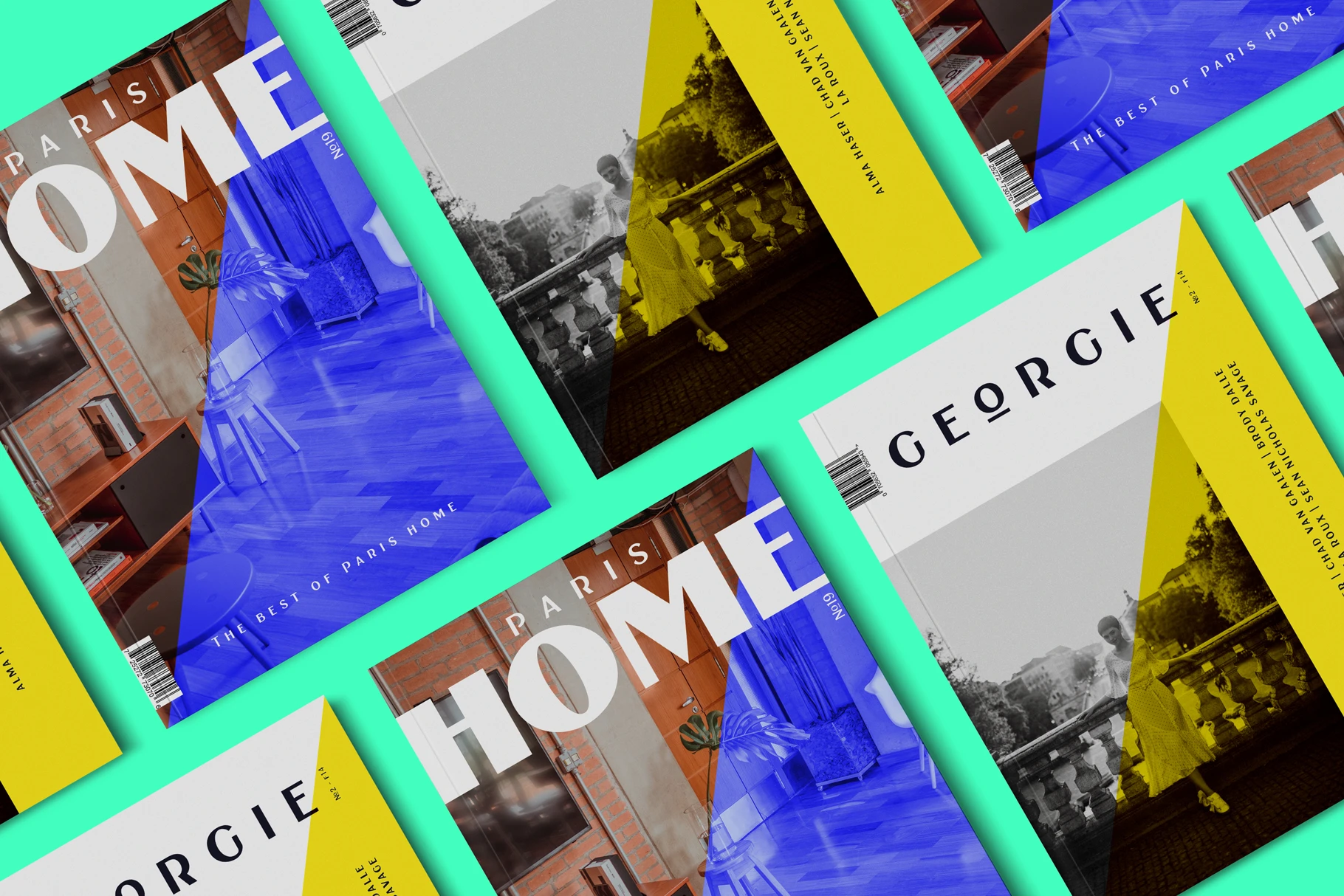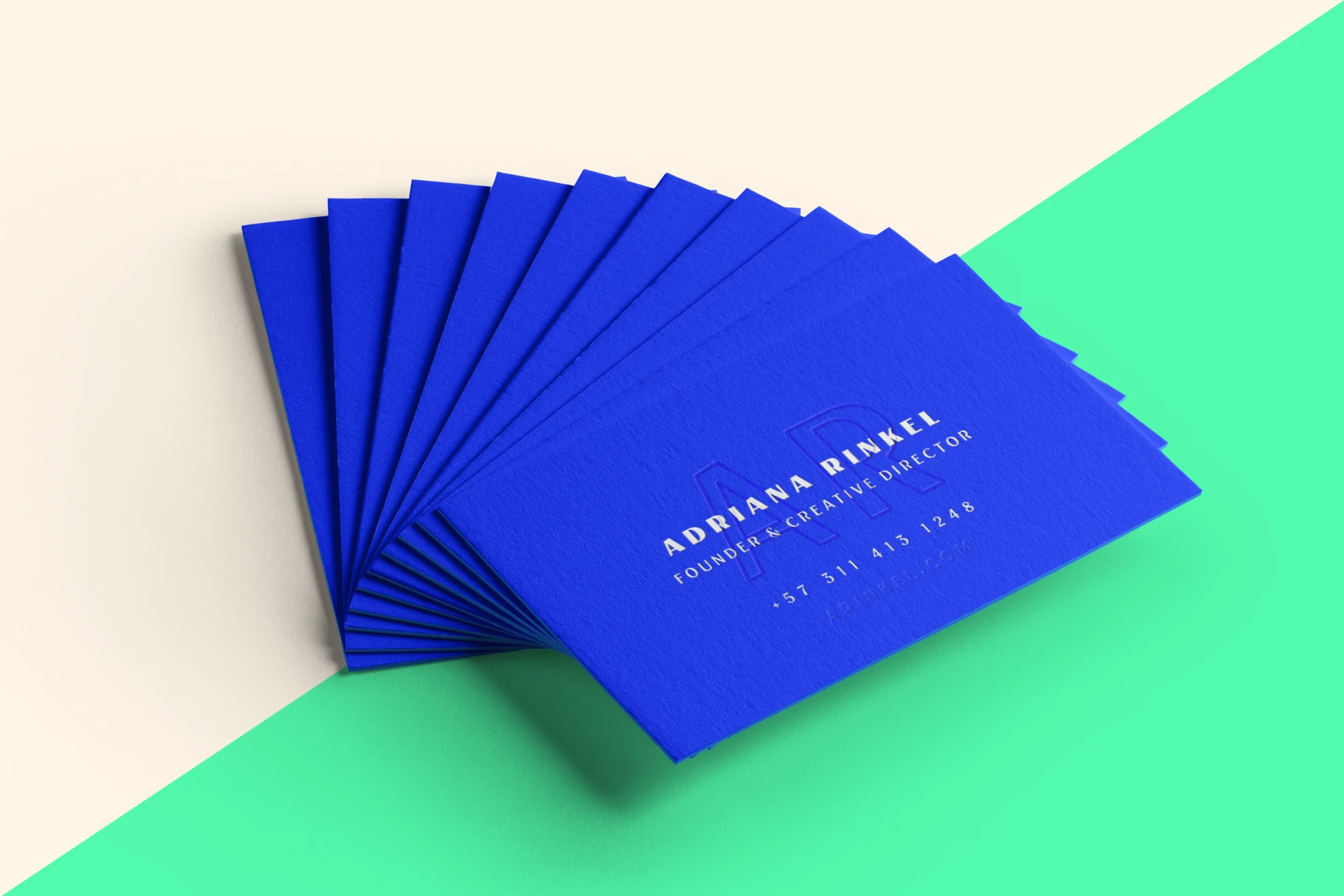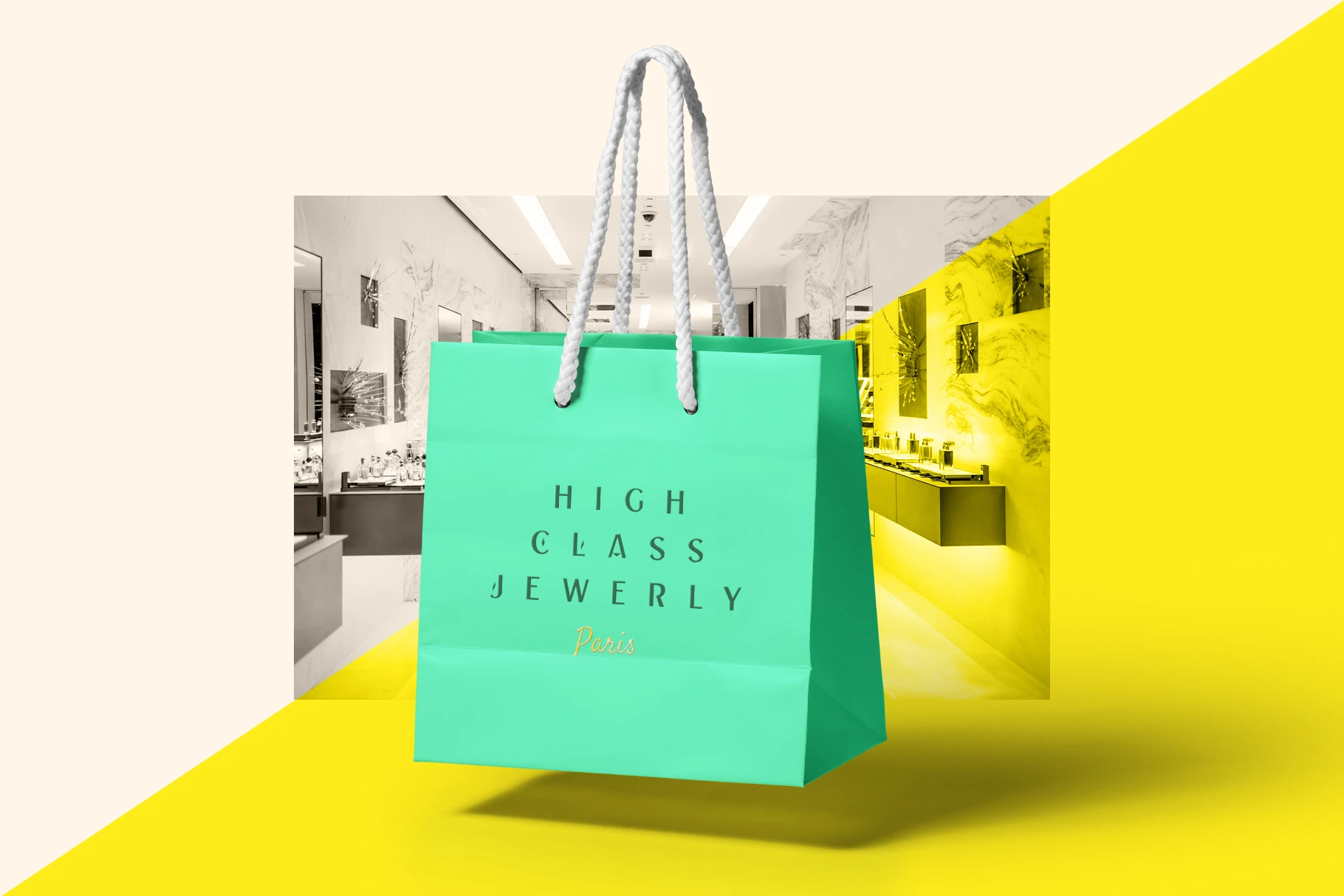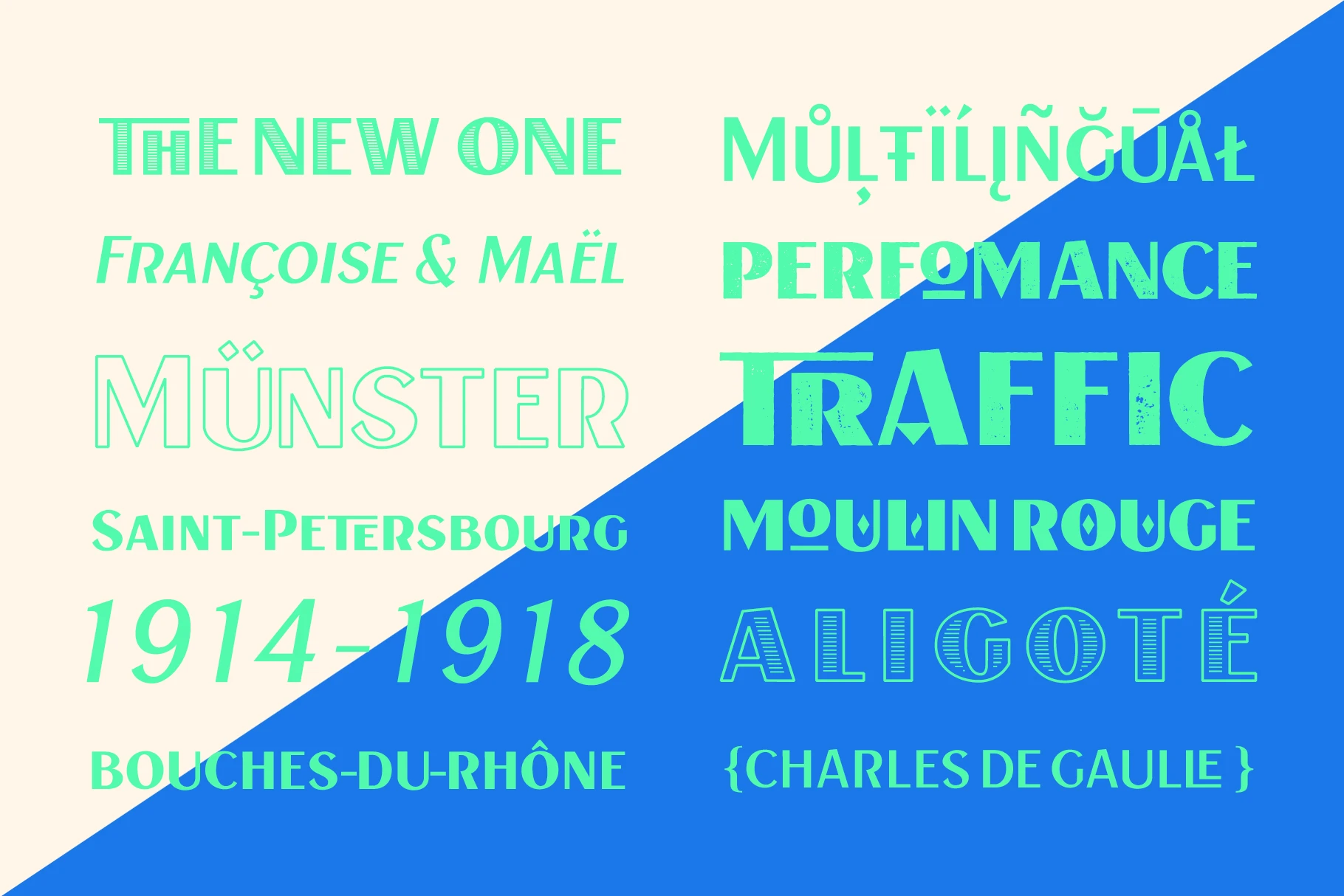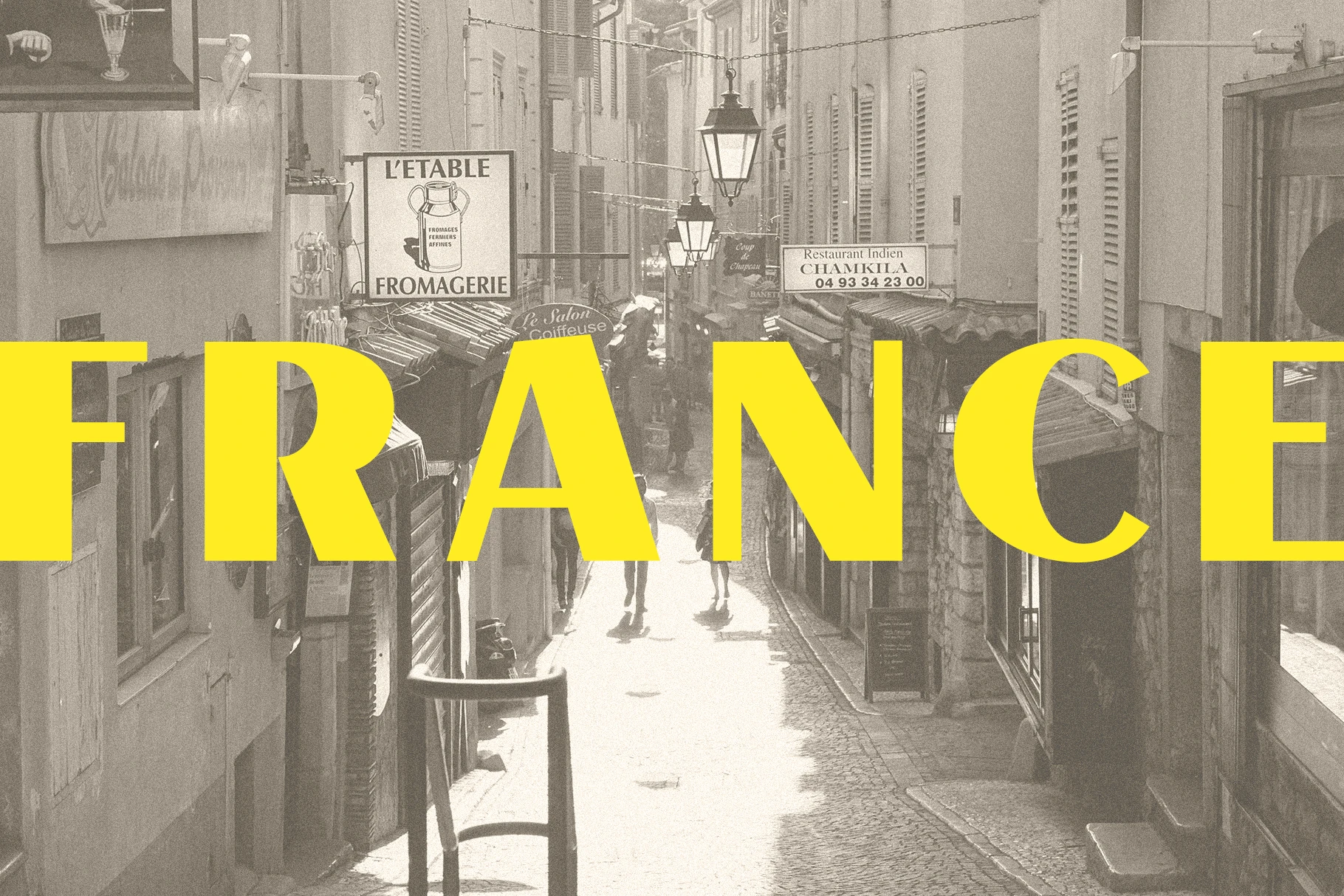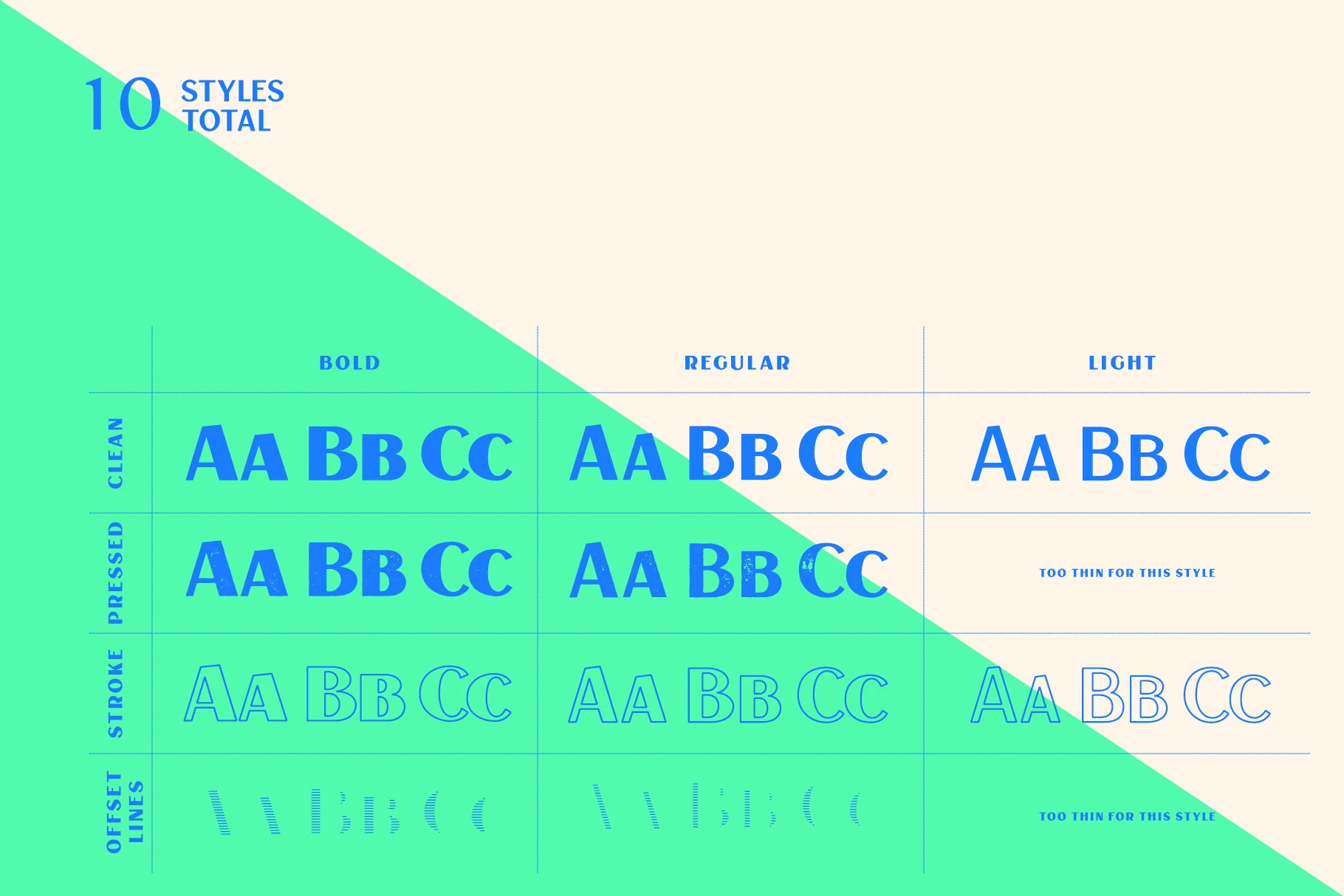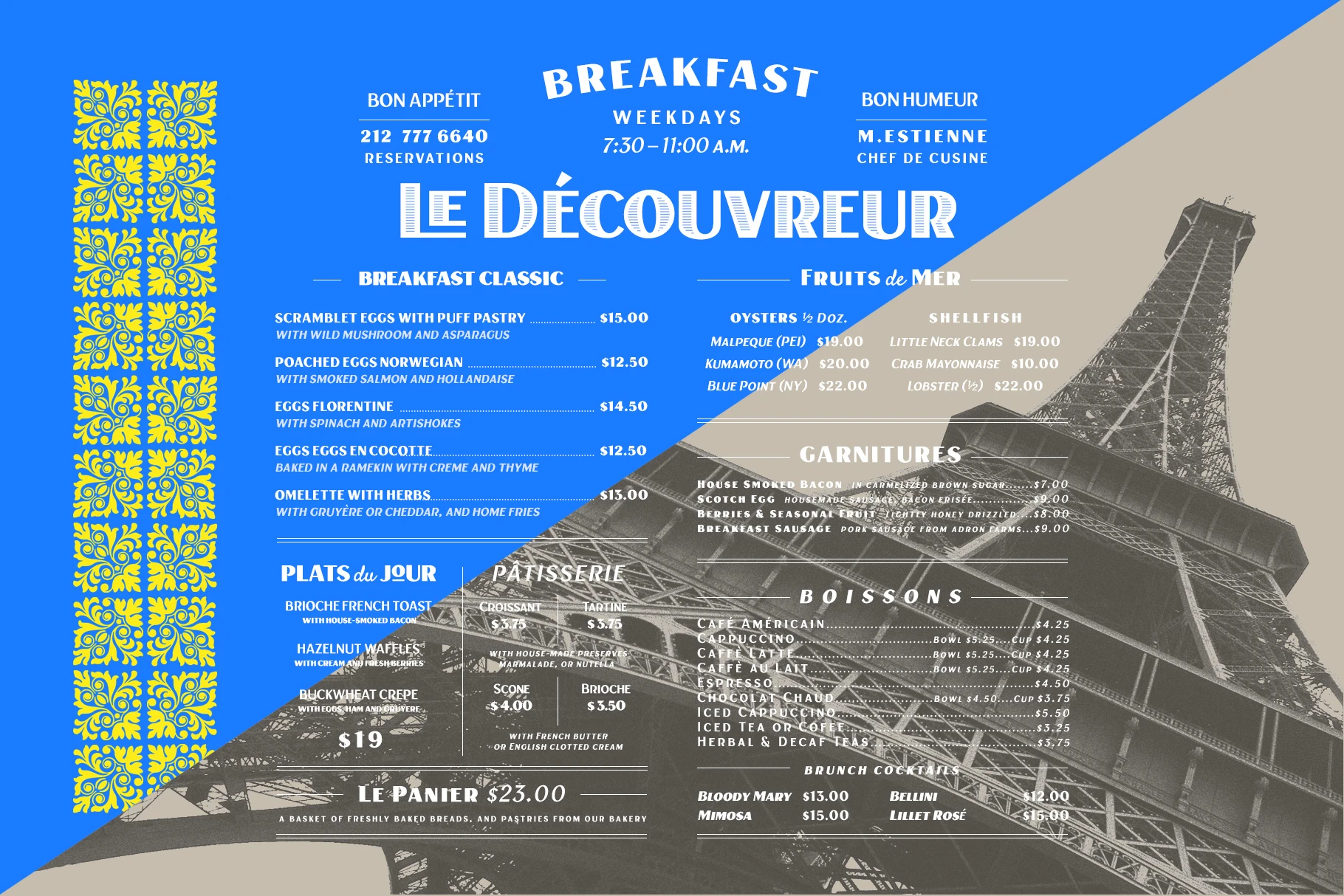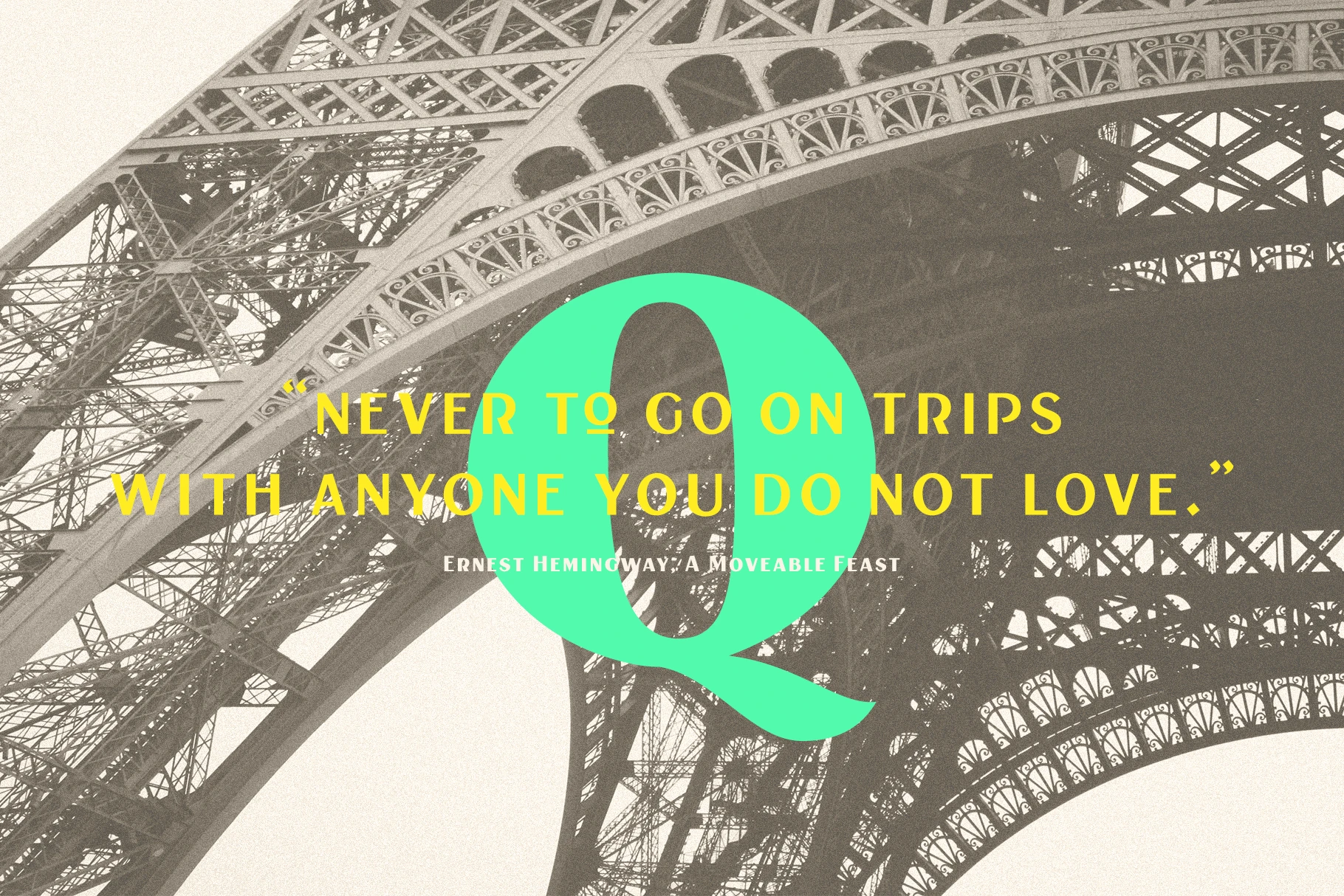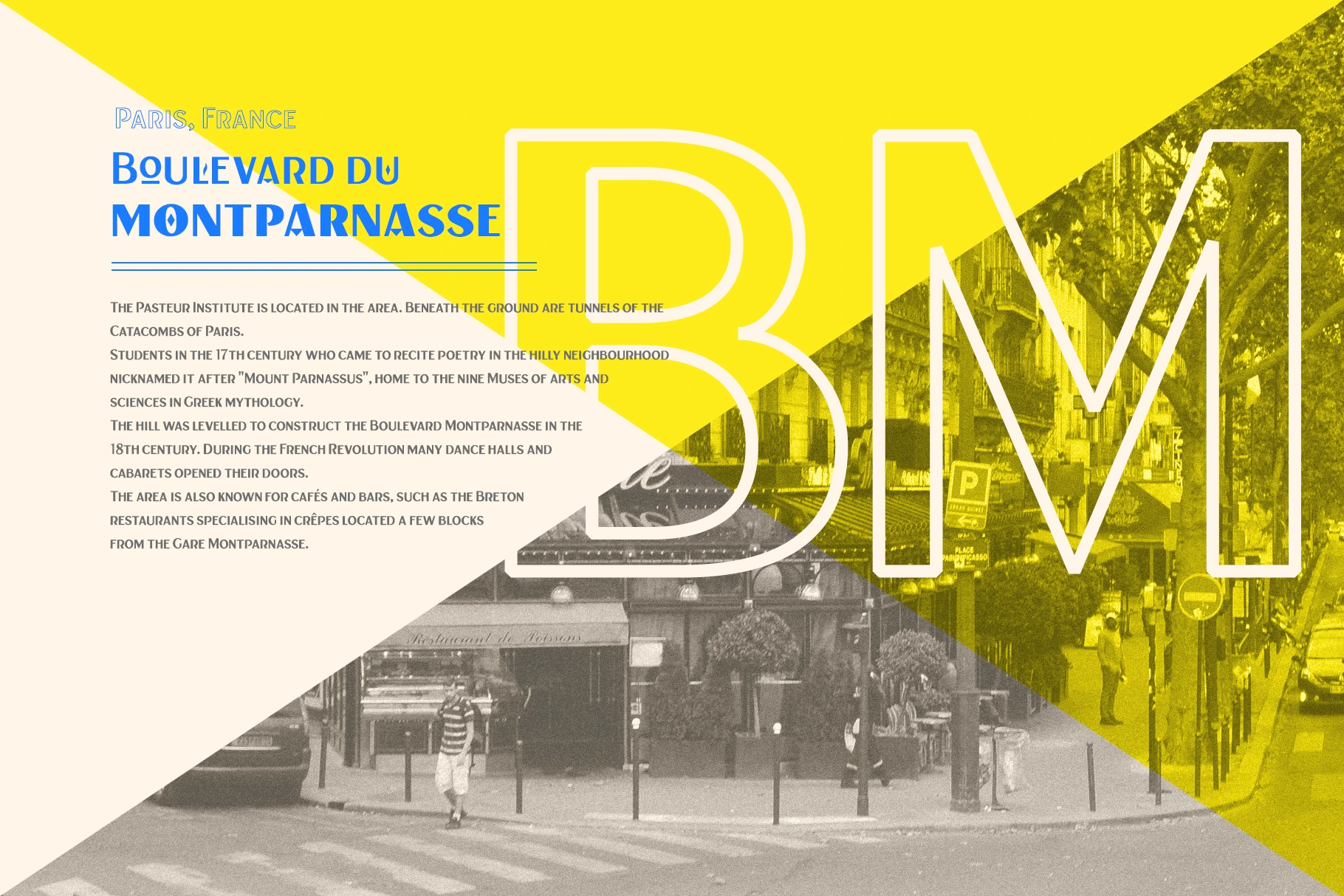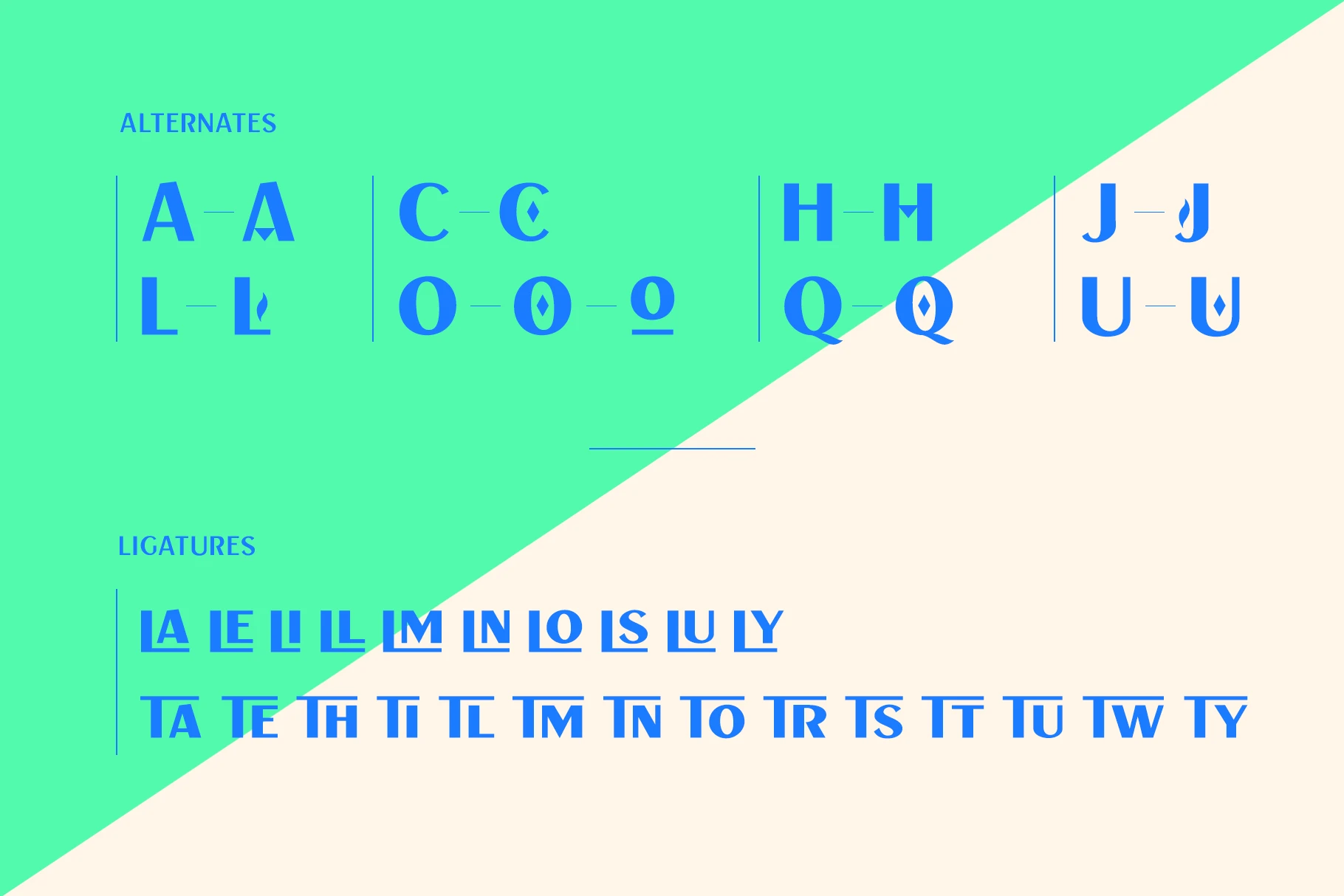
Le Bonjour Font Family
Le Bonjour is a classic retro sans-serif font family with a modern touch. Features bold styles with strong vertical and horizontal contrast, and light styles that feel elegant and airy. Built entirely in small caps, making it ideal for headers, logotypes, and sub-headers. Carries a French mid-century spirit, with unique details like an alternate underlined O, decorative alternates for select letters, and custom ligatures for L and T pairs. Designed for stylish, vintage-inspired typography with a refined edge.
• Common Ligatures
• Fractions
• Ordinal Numerals
• Stylistic Alternates
• Stylistic Sets